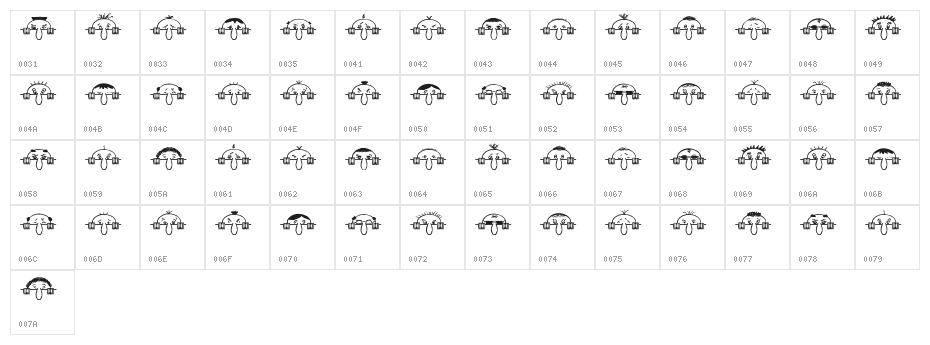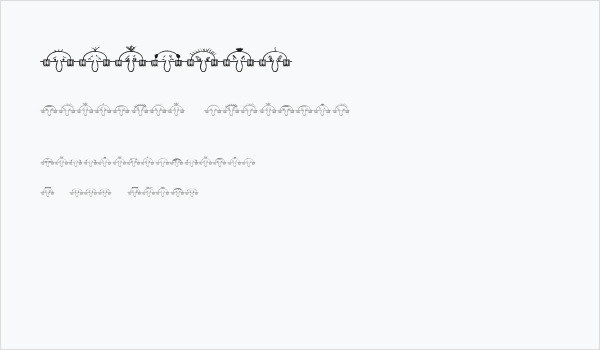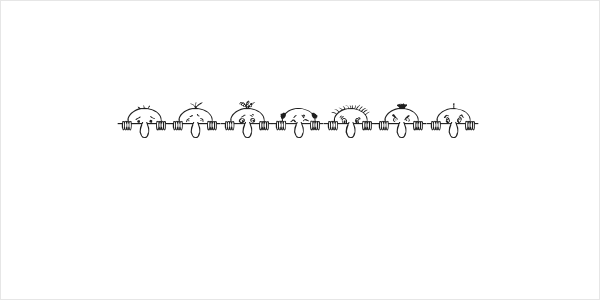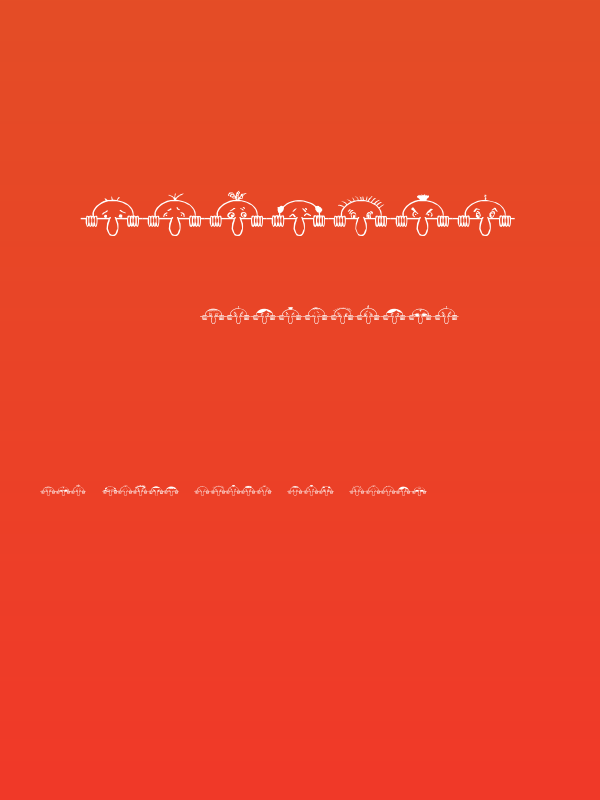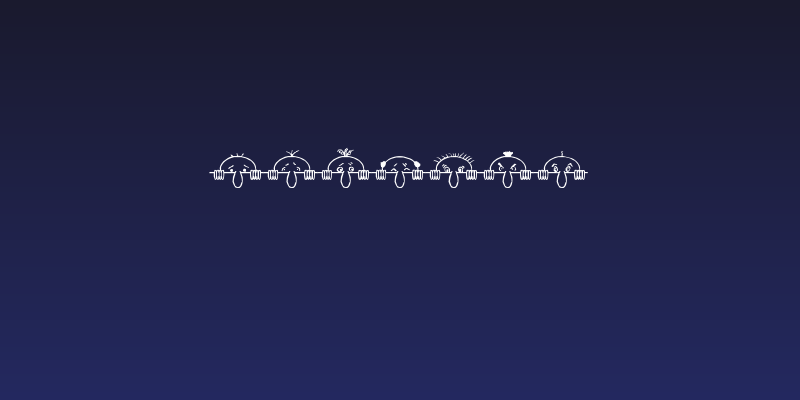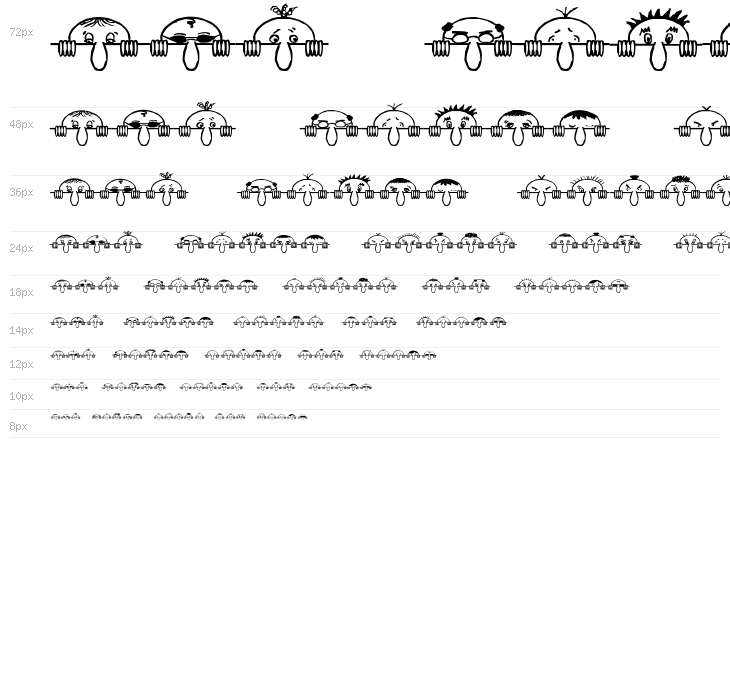
Muelroy Font
Muelroy Description
A whimsical, illustrative typeface featuring cartoonish faces peeking over a line, each character uniquely stylized with different facial expressions and hair, creating a playful and humorous effect.
| Overall Style | Whimsical, Playful, Cartoonish |
| Use Case | Headlines, Logos, Posters, Themed events |
| Proposed Projects | Children's books, party invitations, comic strips, playful branding, educational materials. |